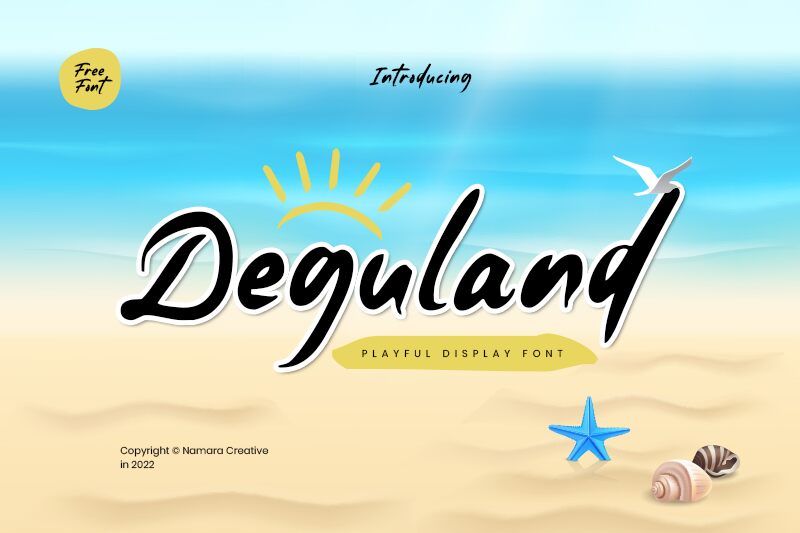
Deguland font is a free brush typeface by Namara Creative. Expressive and contemporary, this font is characterized by a dynamic and artistic visual appearance. What makes it stand out from other fonts is its friendly and welcoming vibe, making it approachable to viewers. All of this is a result of a casual structure that forms every single character.
The versatile nature of Deguland font makes it suit various personal and professional projects such as branding, advertising, posters, flyers, packaging, magazines, and book covers. It is a great font to incorporate within websites and mobile application design as well.
Deguland is a natural font inspired by marker handwriting. This enchanting handwritten font will elevate any creative project, making it a true standout. Best of all, this font is completely FREE.